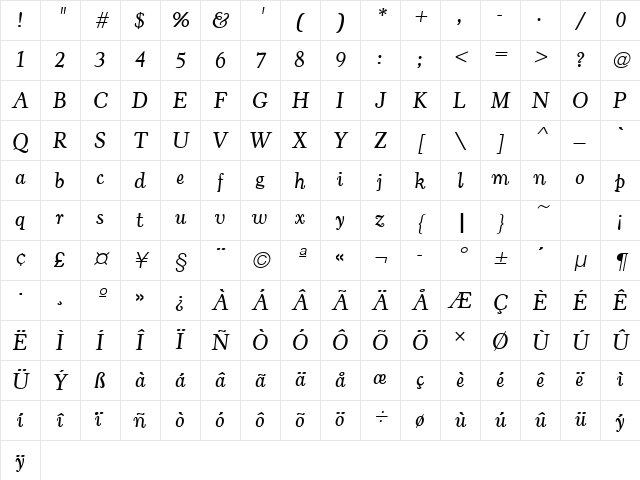
CooperOldStyURWTLig Italic
CooperOldStyURWTLig Family
Complete CooperOldStyURWTLig Italic glyph index. Displaying only characters natively supported by CooperOldStyURWTLig Italic font.
Design Context for CooperOldStyURWTLig
CooperOldStyURWTLig is a composed and adaptable typeface that performs quietly and consistently across a wide range of design contexts. The slanted form adds forward momentum and visual energy.
Pro Tip: Use CooperOldStyURWTLig for emphasis, pull quotes, and subheadings where its slanted energy can add rhythm to the layout.